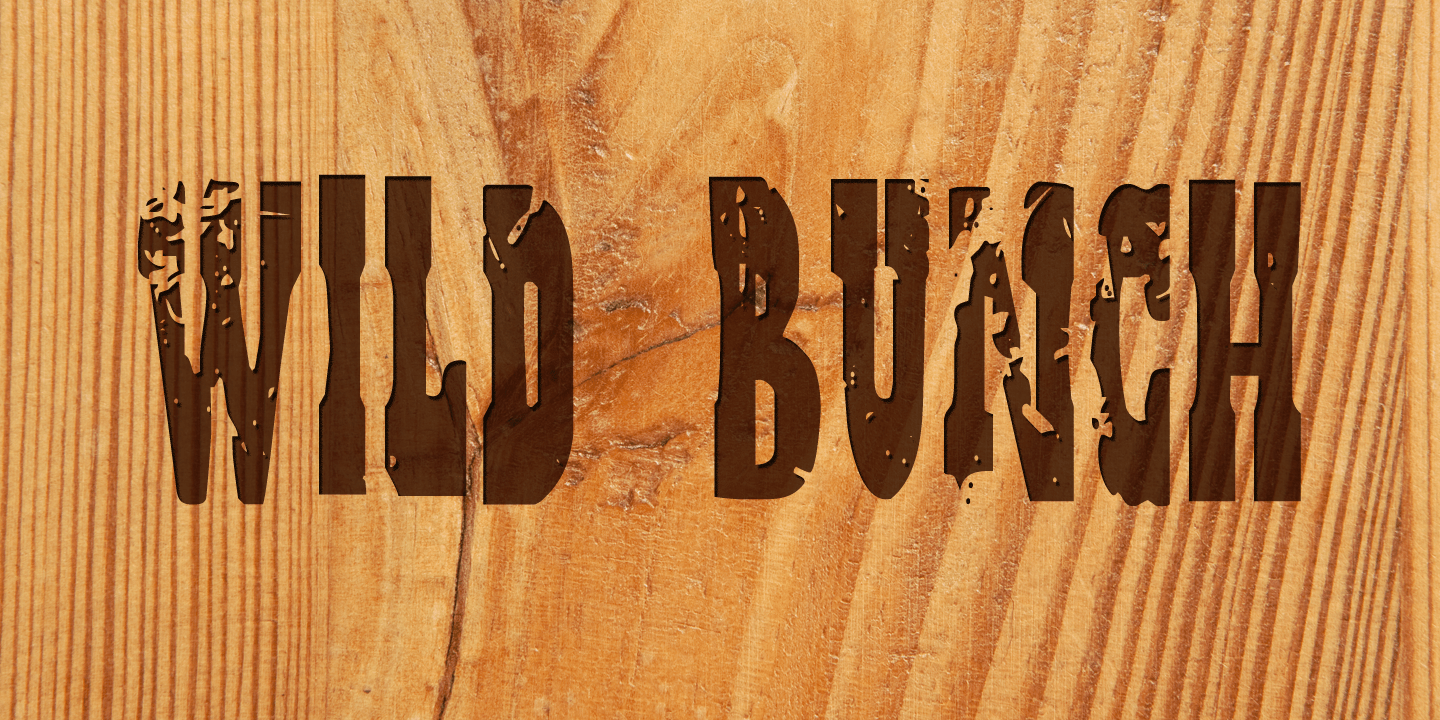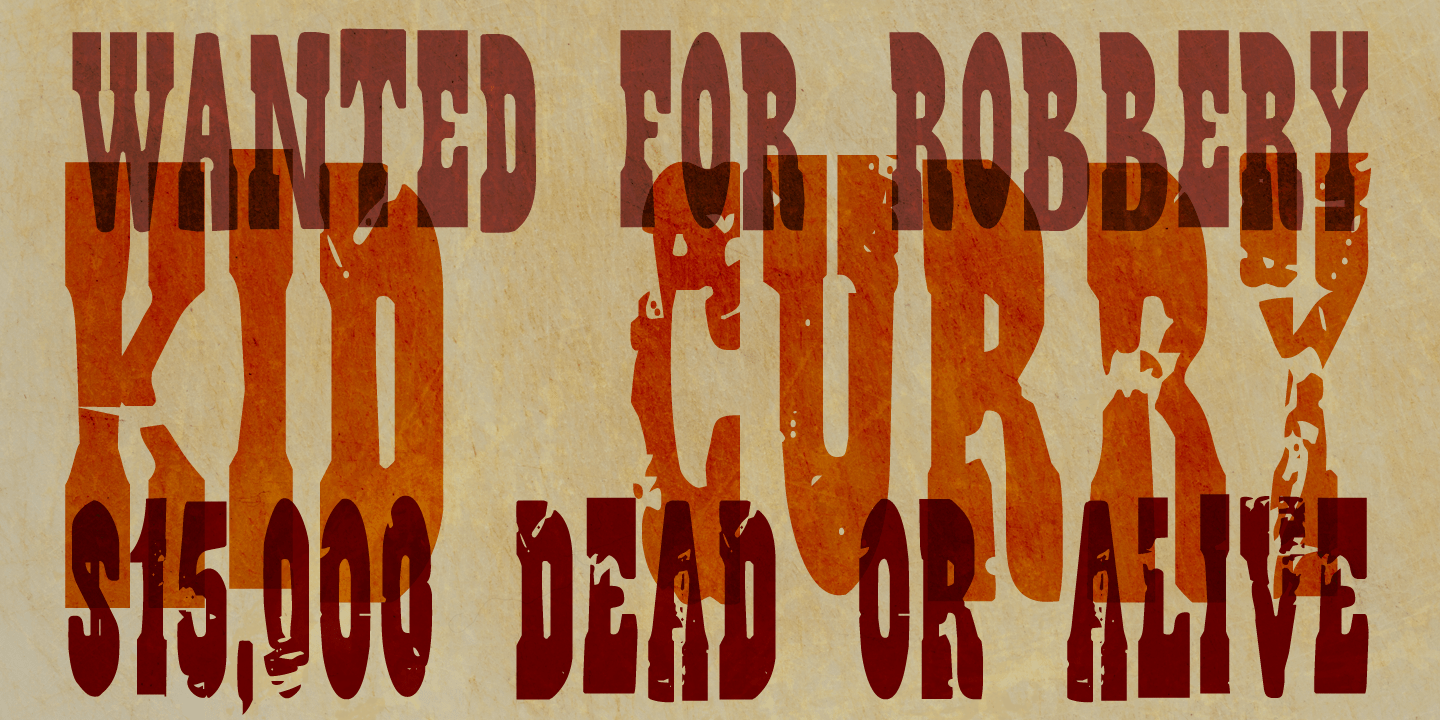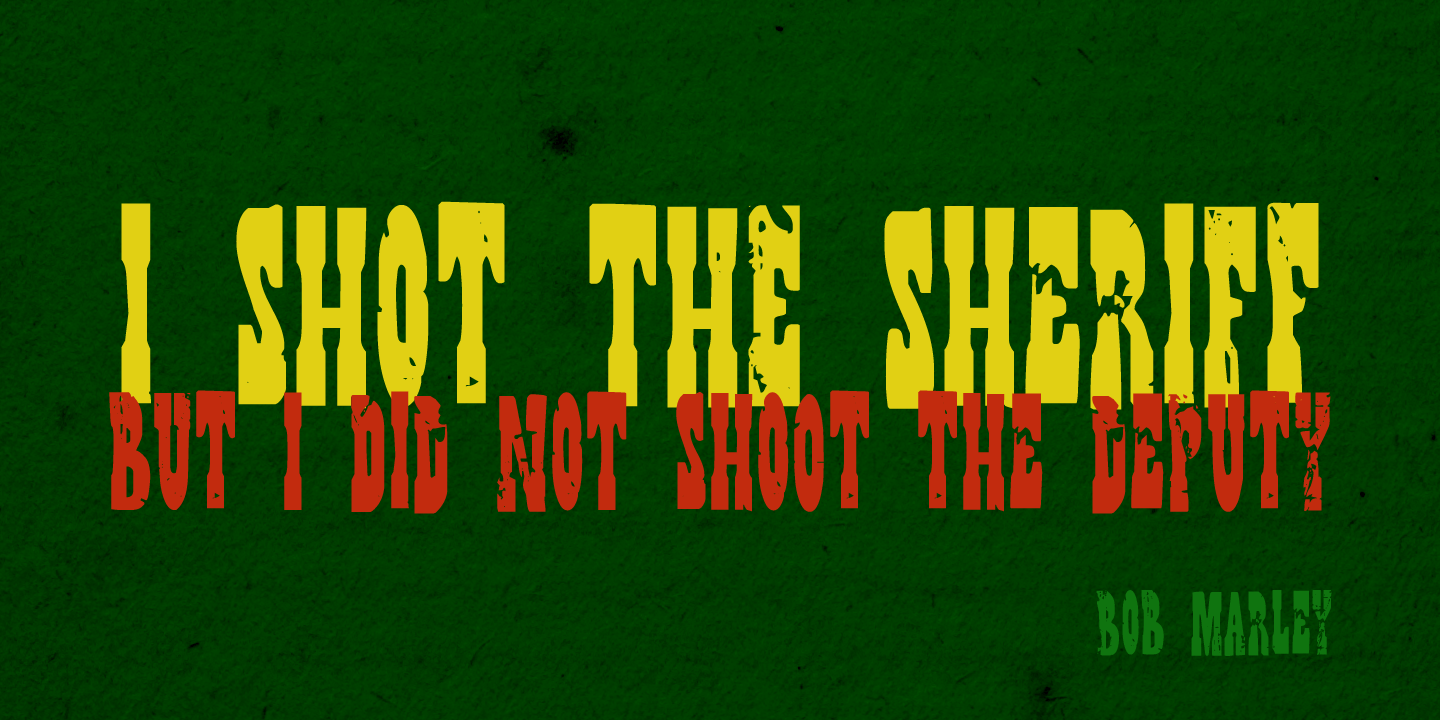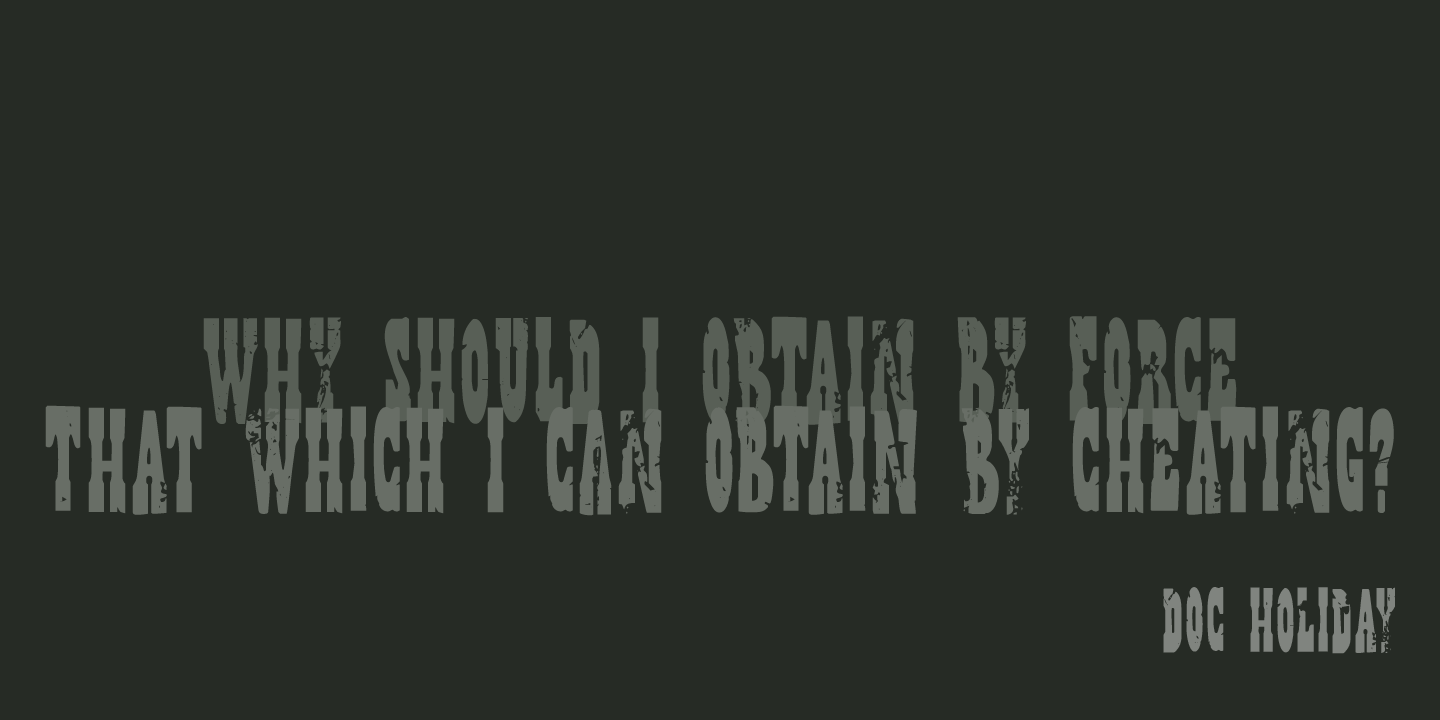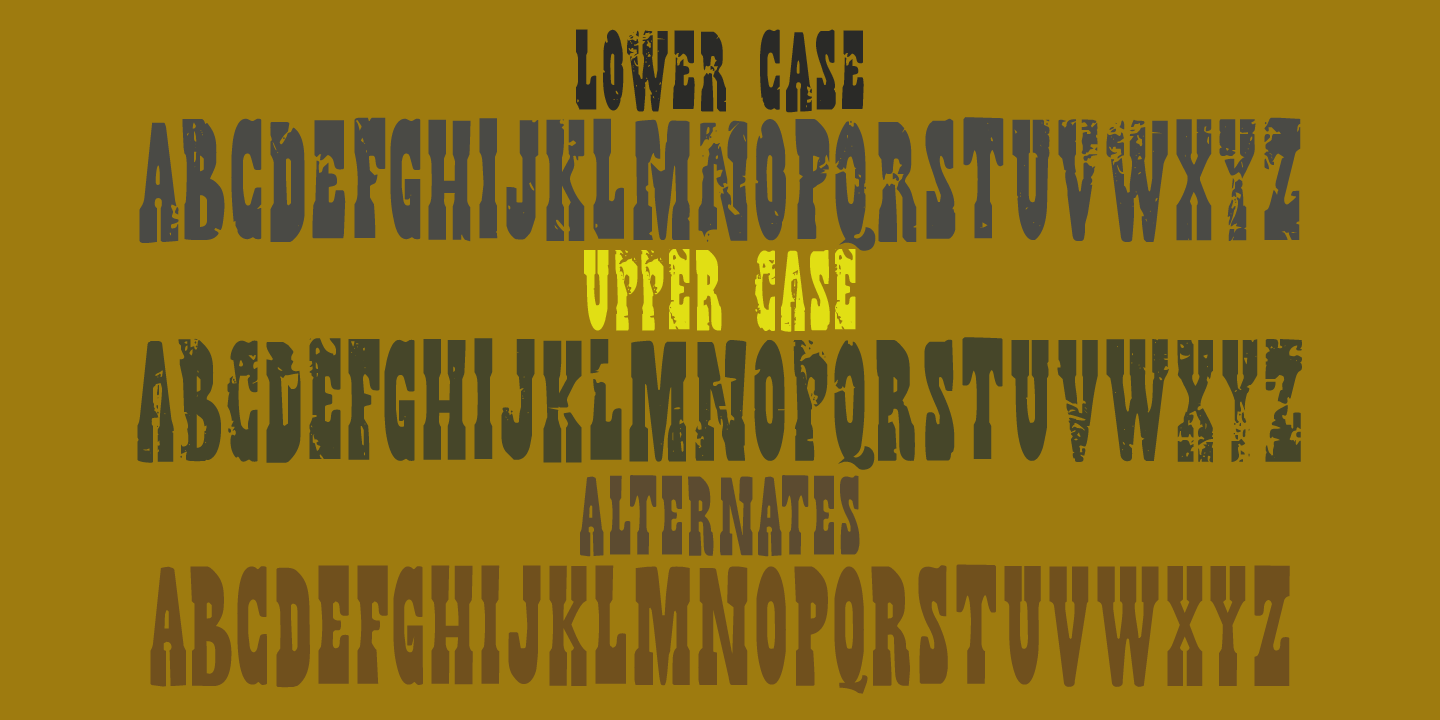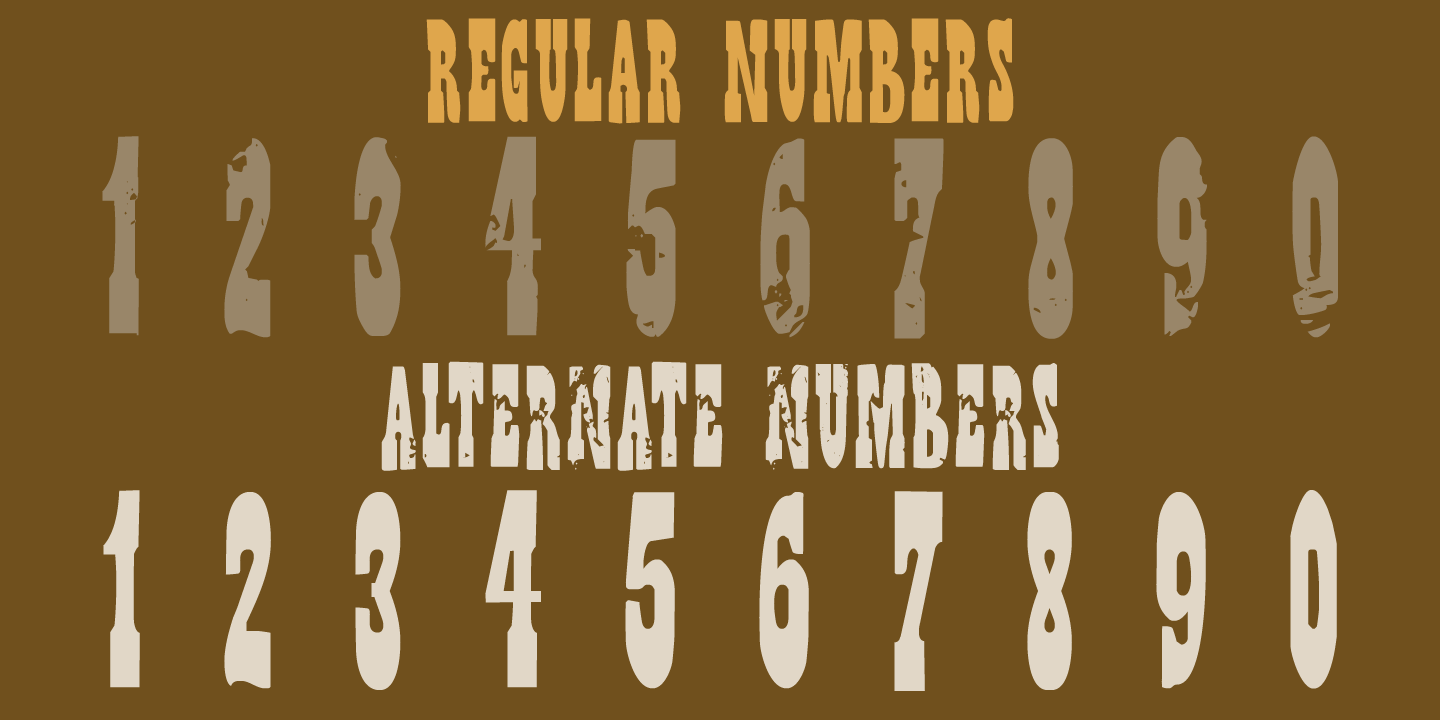
Wild Bunch
The Wild Bunch, also known as the Doolin?Dalton Gang, was a gang of outlaws that terrorized Kansas, Missouri, Arkansas, and Oklahoma Territory during the 1890s. They robbed banks, killed lawmen and held up trains. Of course its members were hunted down and 'wanted' posters, with that typical 'Wild West' font, appeared all over. Wild Bunch is a 'wanted poster' type font. It is an all caps font, but upper and lower case differ slightly. A set of alternate, non-eroded, glyphs for the lower case (including alternate numbers) completes this font.